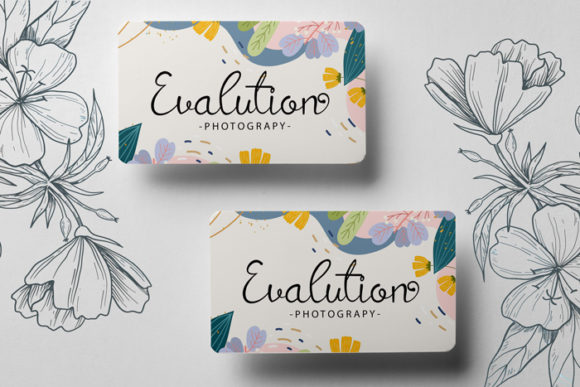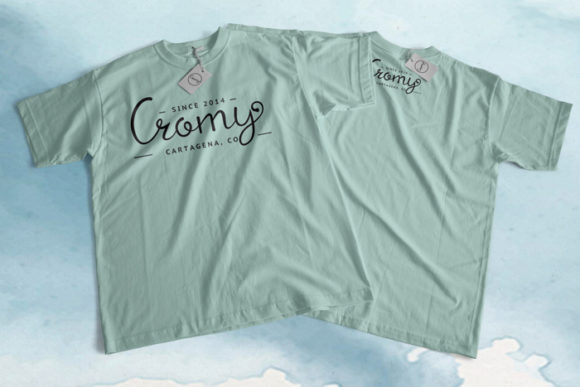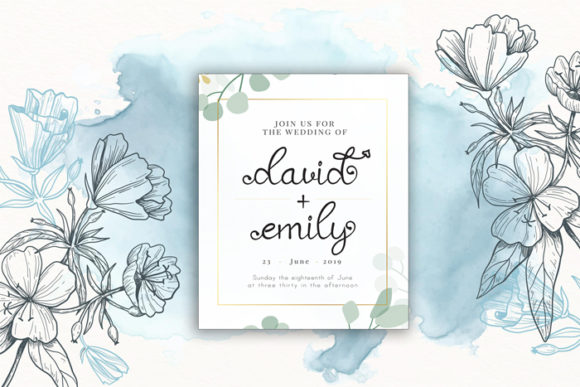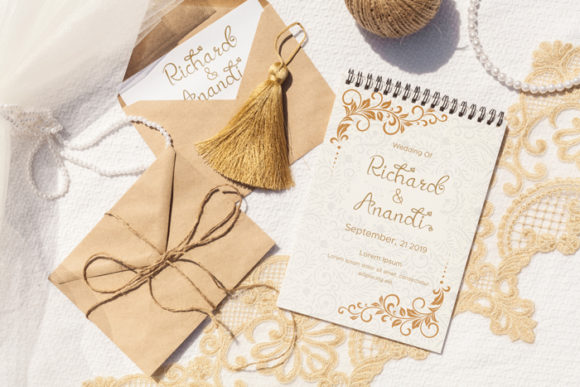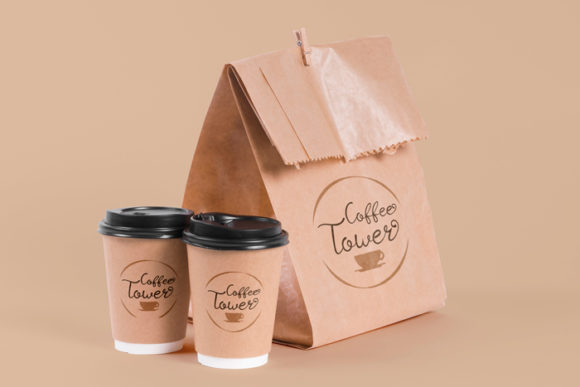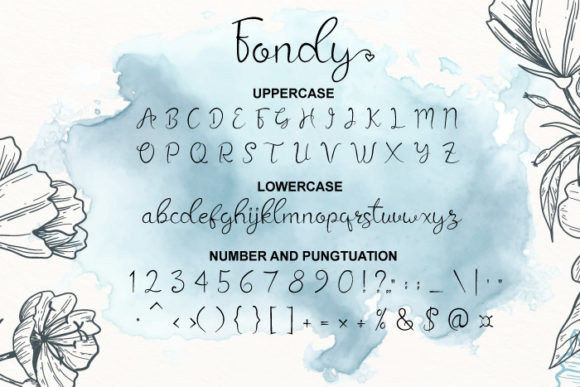
The Designer’s Delight: Uncovering the Beauty of Fondy Font
I’ll never forget the moment I stumbled upon Fondy Font while working on a luxury branding project for a high-end jewelry client. I had spent hours scouring the internet for the perfect font, but nothing seemed to capture the essence of elegance and sophistication I was looking for. That was until I laid eyes on Fondy – a beautiful, light handwritten font that instantly elevated my design game. In this article, I’ll share my experience with Fondy, its unique features, and how to make the most of this stunning font in your design projects.
- ✨ Unique and elegant handwritten feel that’s perfect for luxury branding, packaging, and editorial design
- ✅ PUA encoded for easy access to glyphs and ligatures
- ✅ Highly versatile and can be used for a wide range of design projects, from logos to social media graphics
- ✅ Beautifully crafted to add a touch of sophistication to any design
- ⚠️ May require some getting used to for beginners, especially when navigating OpenType features
- ⚠️ Some users may find the font too delicate or elegant for certain design projects
The Story Behind Fondy Font: A Designer’s Inspiration
Fondy Font was created with the intention of providing designers with a unique and elegant handwritten font that could add a touch of sophistication to any design project. Inspired by the beauty of handwritten scripts, the designer aimed to craft a font that would be both versatile and luxurious. With its PUA encoding and extensive glyph library, Fondy Font has become a go-to choice for designers looking to elevate their designs.
| Font Name | Fondy Font |
| Author | Rezastudio |
Q: What is PUA encoding, and how does it benefit Fondy Font?
PUA (Private Use Area) encoding allows designers to access a font’s glyphs and ligatures easily. In the case of Fondy Font, PUA encoding provides users with a wide range of glyphs and ligatures, making it easier to create unique and customized designs.
Q: Is Fondy Font suitable for beginners?
While Fondy Font is user-friendly, it does require some basic knowledge of typography and OpenType features. Beginners may need to spend some time getting familiar with the font’s capabilities and navigating its glyph library.